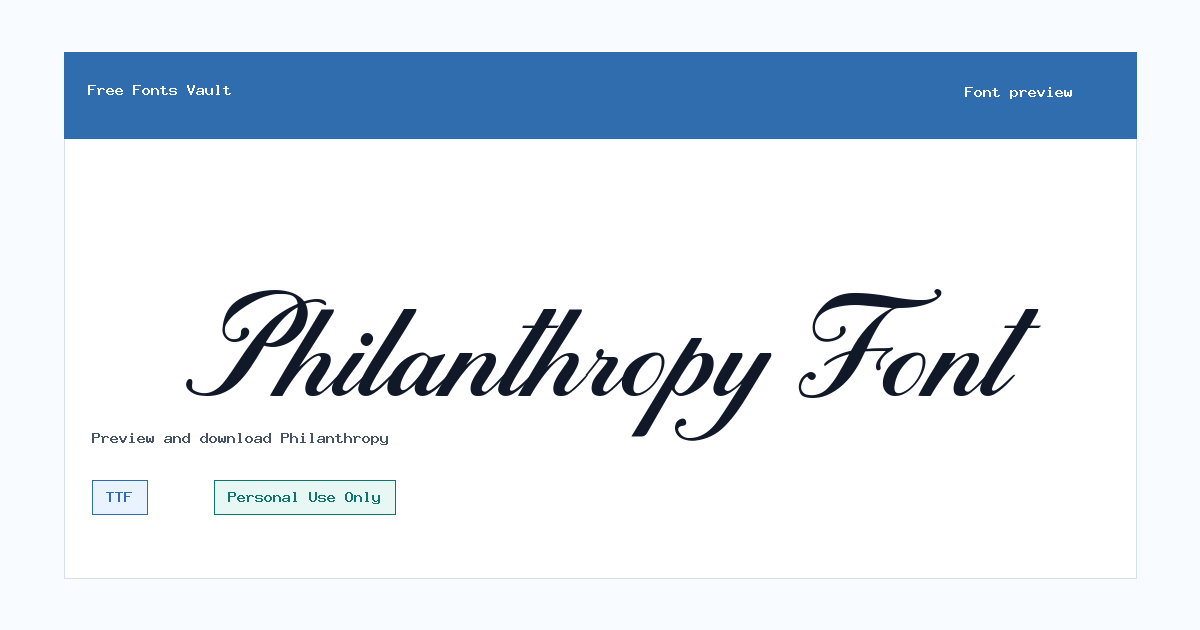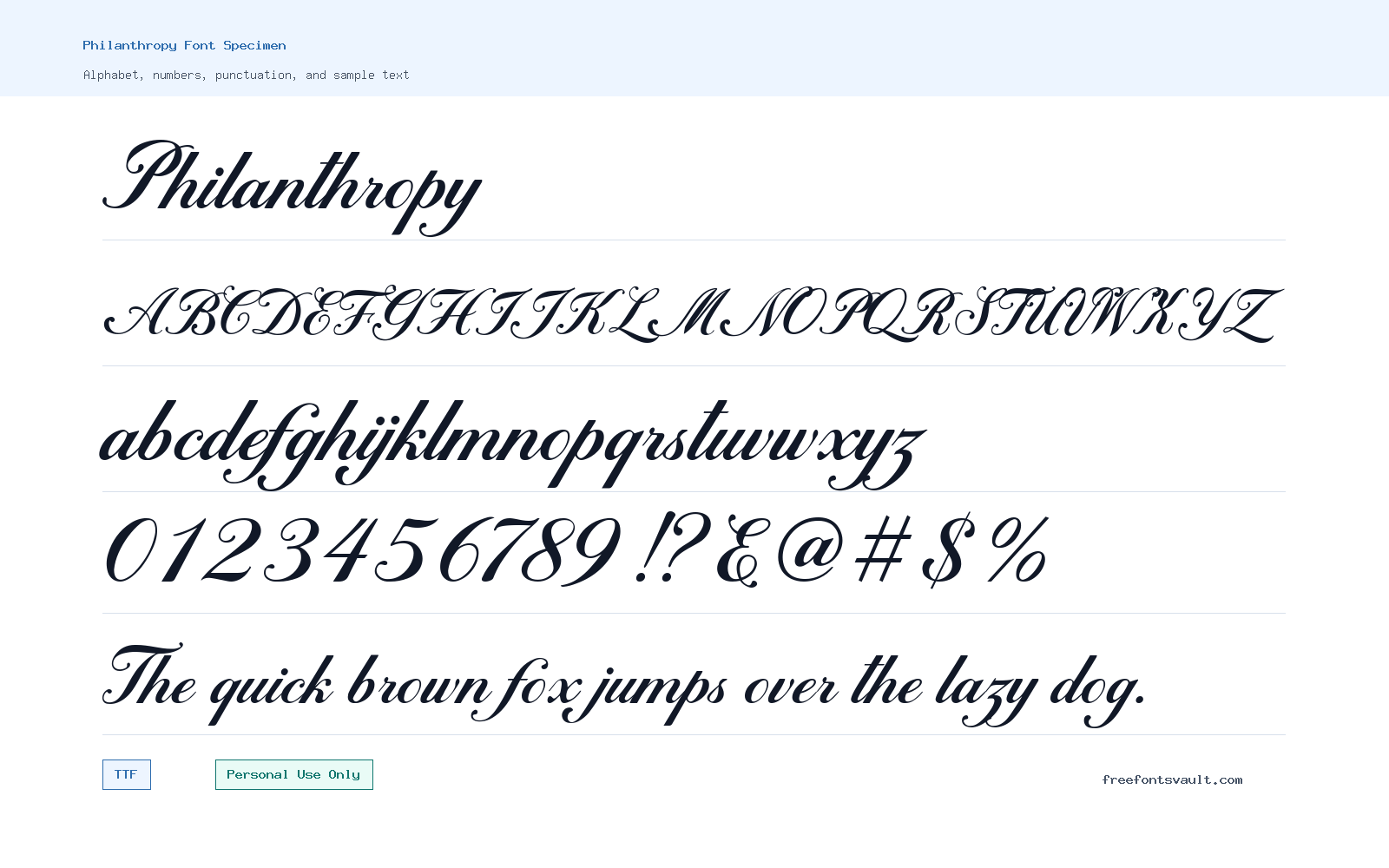
Philanthropy
- Designer Muhamad Fikry Nuralif
- Foundry Fikryal Studio
Philanthropy font.
Philanthropy is a calligraphy script font with a flowing handwritten look. It is a good choice when you want a decorative wordmark, invitation title, or short display line to feel more personal and elegant.
About Philanthropy Font
Philanthropy uses a script style, so its strength is in expressive lettering rather than long-form reading. The regular TTF file can be tested in the preview tool with names, short quotes, headings, and logo-style text. Because calligraphy fonts often rely on curves and connected strokes, the best way to judge it is to try the exact words you plan to use before downloading.
Use Philanthropy for short pieces of text where the letters have room to breathe. It can work well for wedding stationery drafts, greeting cards, boutique-style headers, social graphics, packaging mockups, and personal branding concepts. For clearer layouts, pair it with a simple sans serif or clean serif font for supporting text. Avoid using it for paragraphs, small captions, dense menus, or any place where quick reading matters more than style.
- Calligraphy script style suited to short display text
- Best used at larger sizes where the script details stay clear
- Invitation headings and greeting card titles
- Personal logo drafts and name-based designs
- Social media quote graphics
- Boutique packaging mockups
- Creative headers for personal projects
Philanthropy is credited to Muhamad Fikry Nuralif and Fikryal Studio.
What kind of font is Philanthropy?
Philanthropy is a calligraphy script font. It is best suited to short decorative text rather than long paragraphs.
How should I pair Philanthropy with other fonts?
Pair it with a plain sans serif or readable serif font. Let Philanthropy handle the title, name, or accent text, and use the simpler font for details.